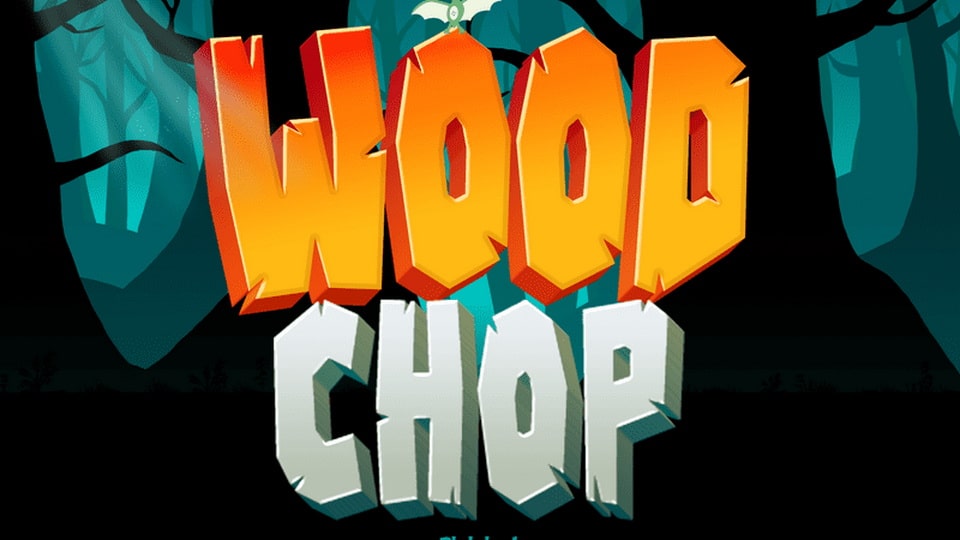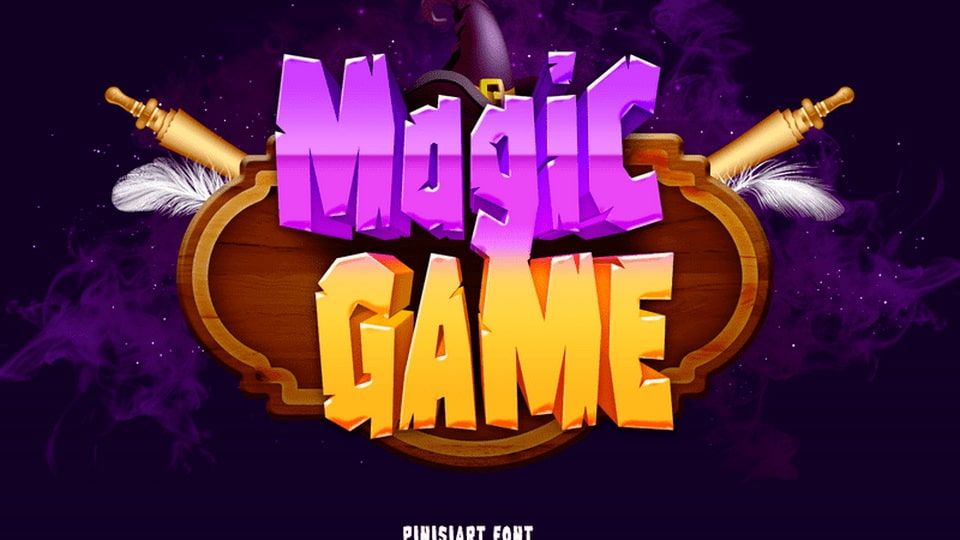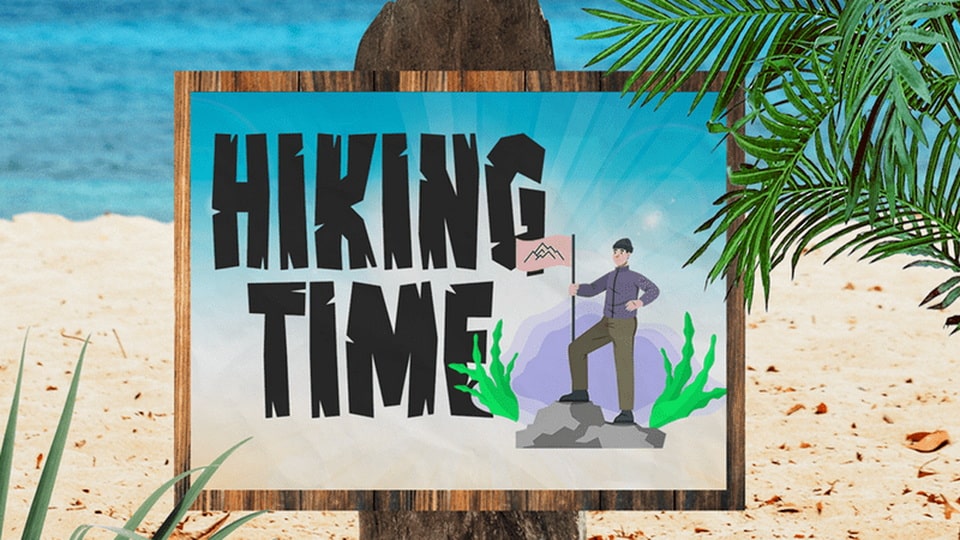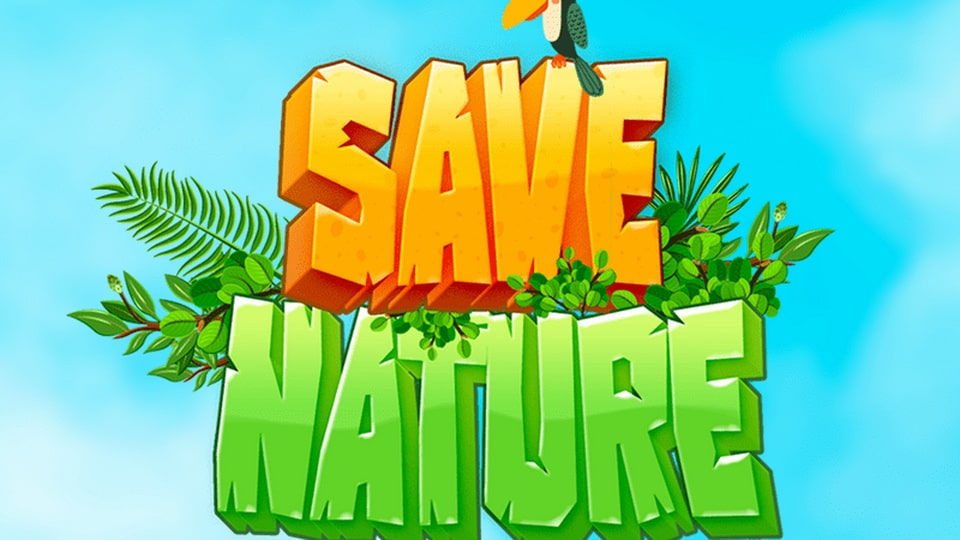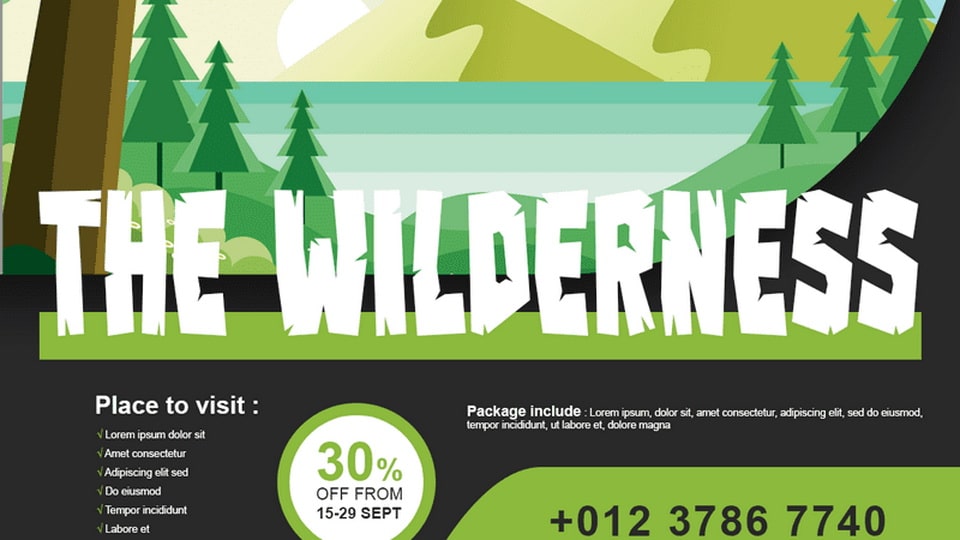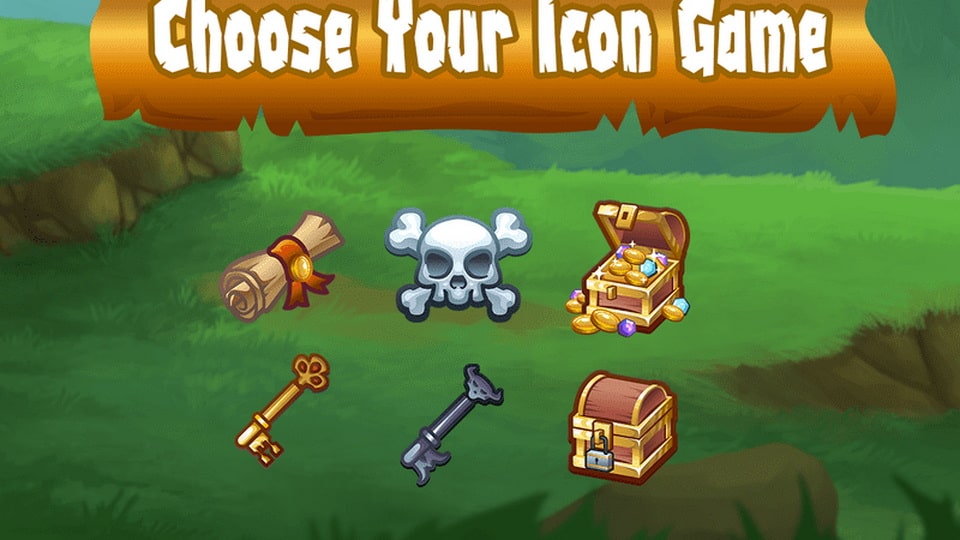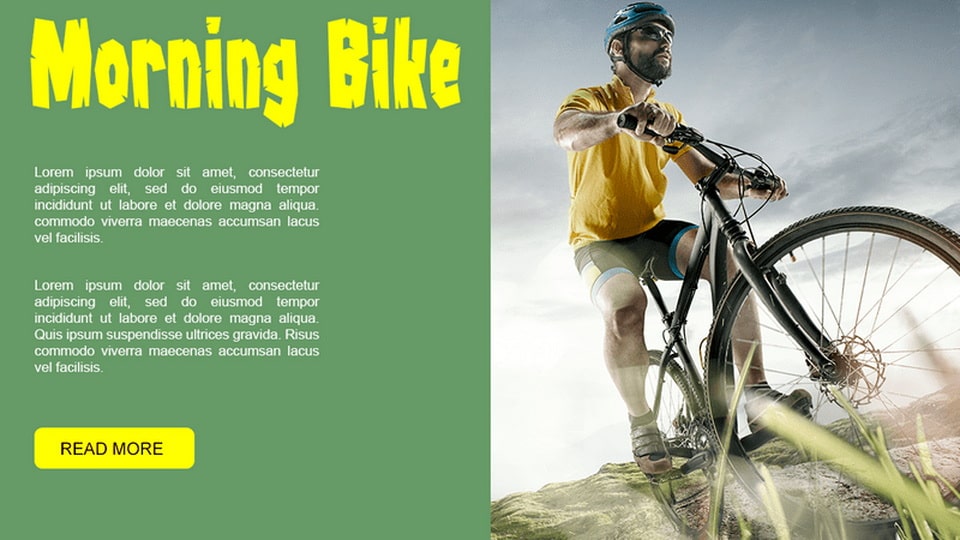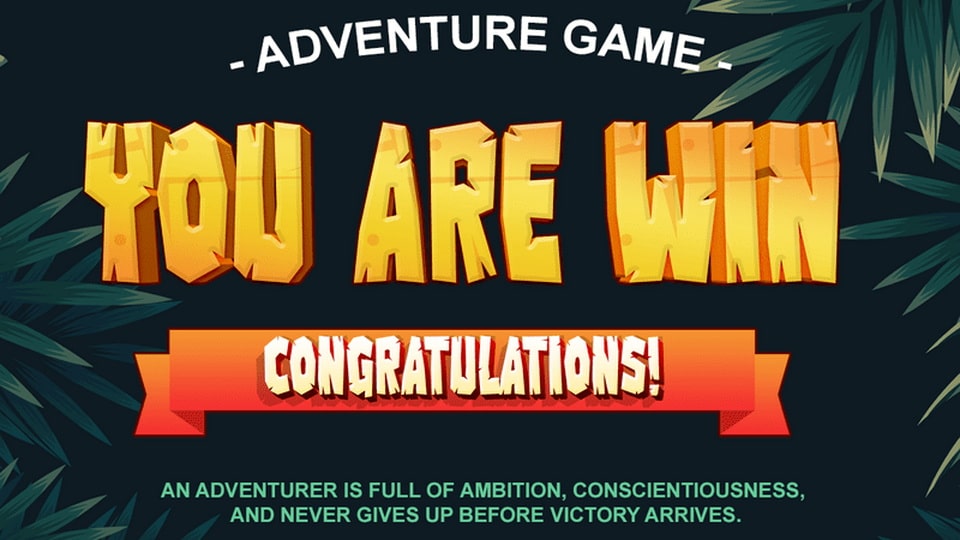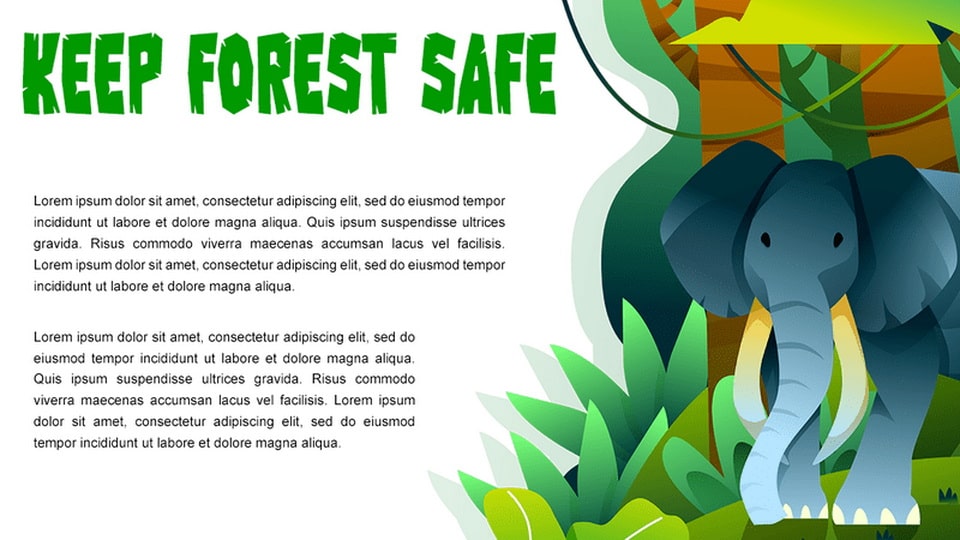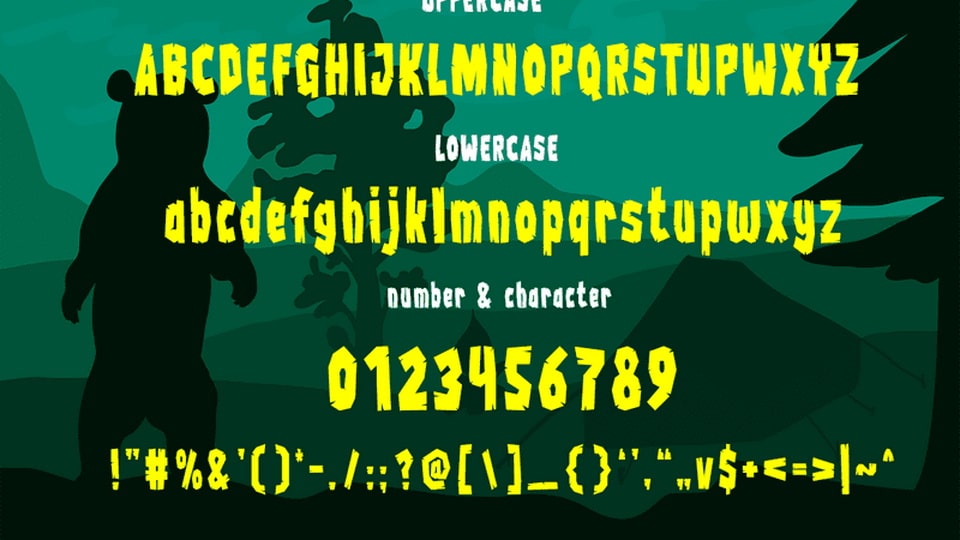
Wood Chop – Adventure Display Font
Looks like wood being chopped into plank, and shaped as a letter.
Suit perfectly for fun outdoor themes books market, wildlife adventure, survivor mode games, jungle and park adventure posters, school supplies font, youtube covers, youtube thumbnails, social media page covers, and so on…